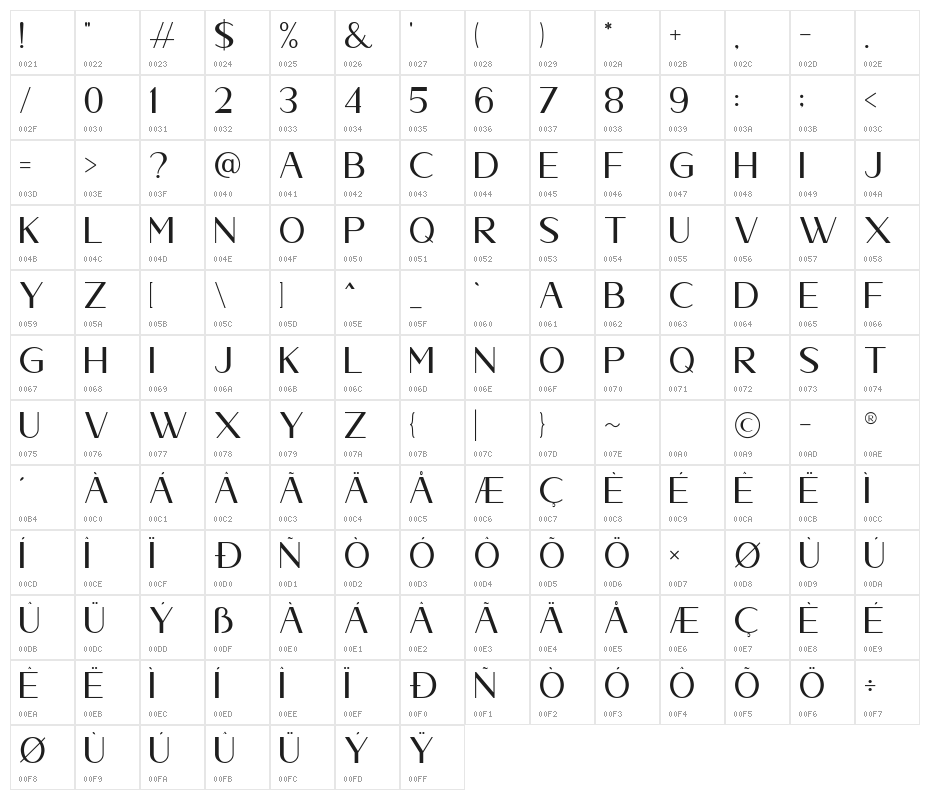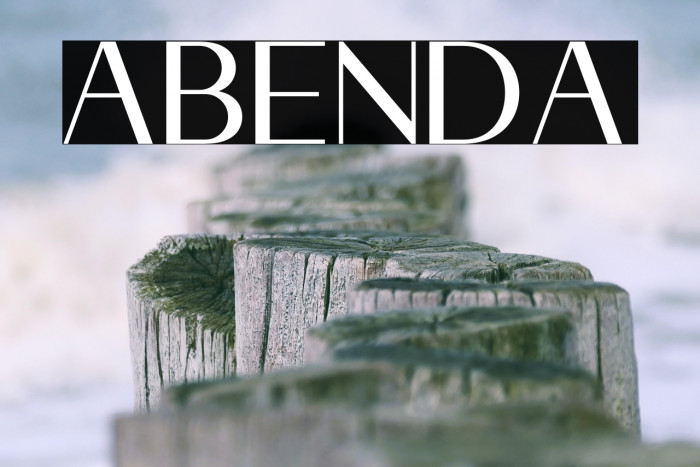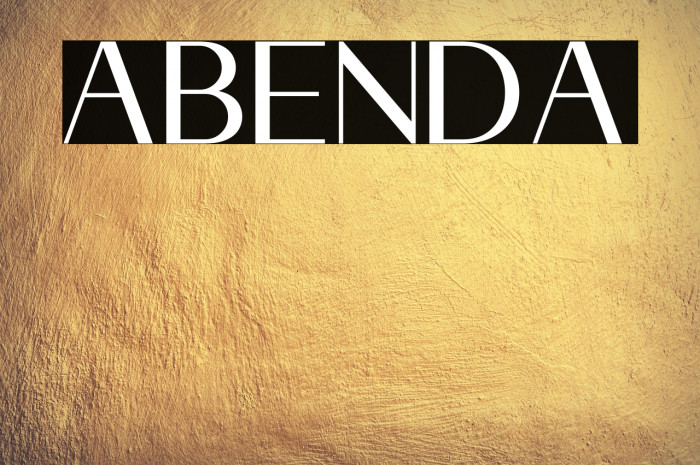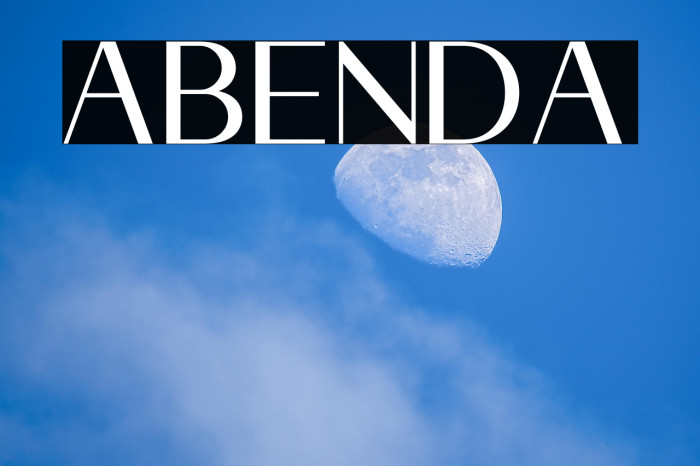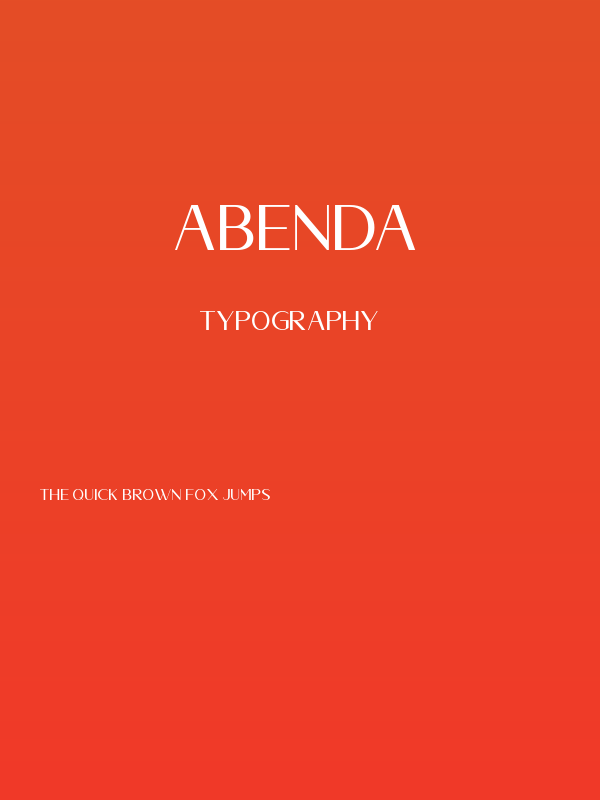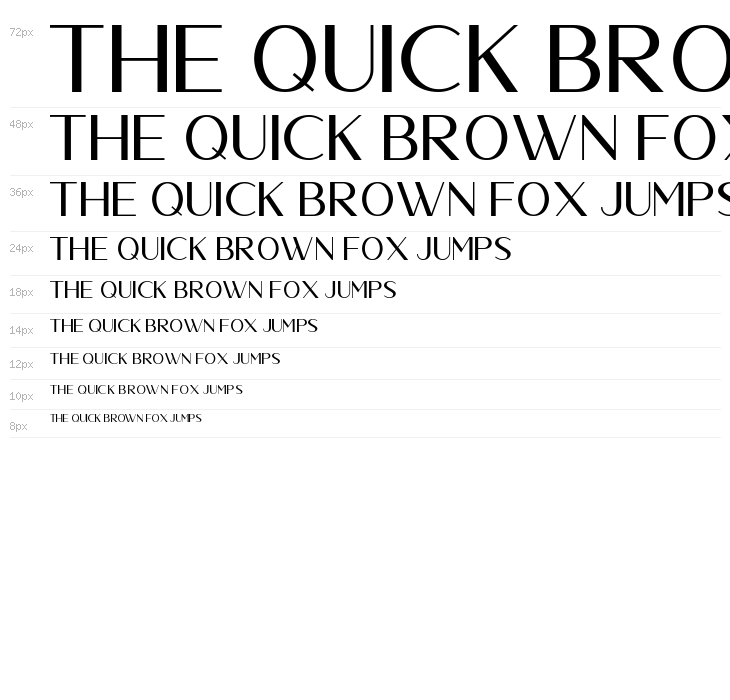
Abenda Font
Abenda Description
This font features a sleek and modern design with clean, sharp lines and a geometric structure. The uppercase letters are bold and commanding, while the lowercase letters maintain a consistent style with slightly softer edges. The numerals are well-proportioned, offering a harmonious balance with the alphabetic characters. Special characters are distinct and clear, enhancing the font's versatility. The overall appearance is contemporary and professional, making it suitable for a wide range of applications.
Use CaseHeadlines, Logos, Branding
Proposed ProjectsIdeal for branding, advertising, web design, and editorial layouts.